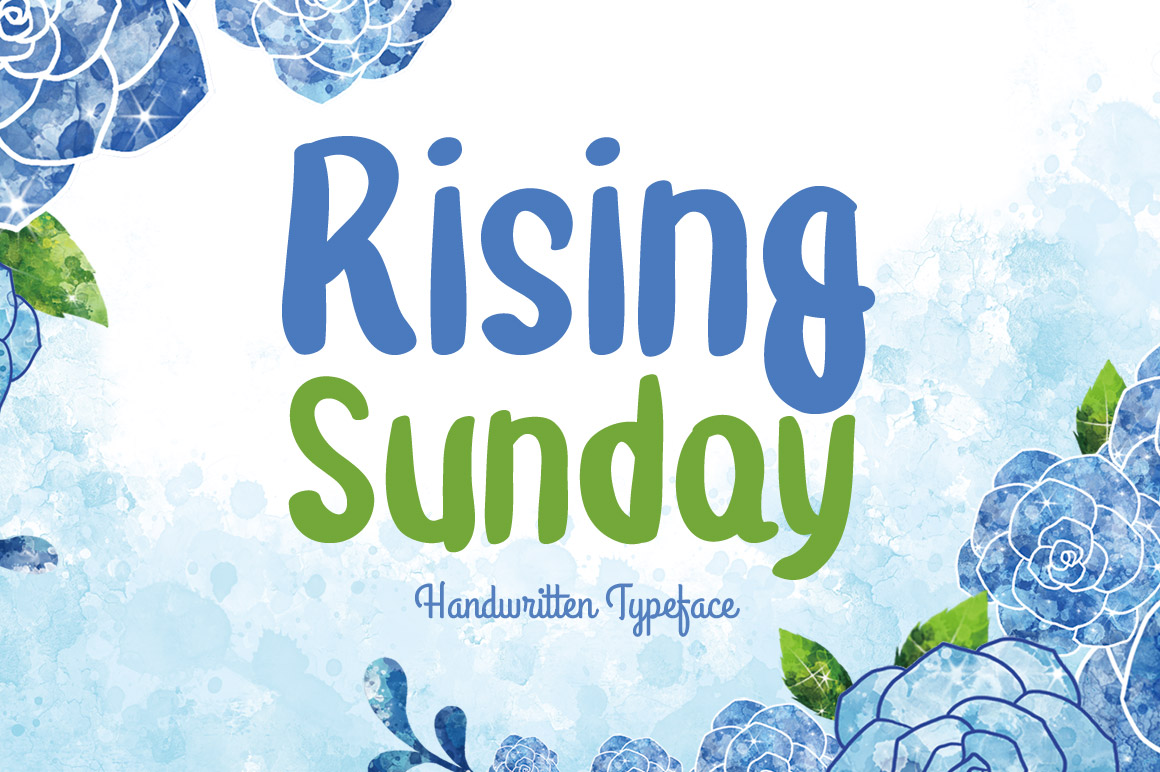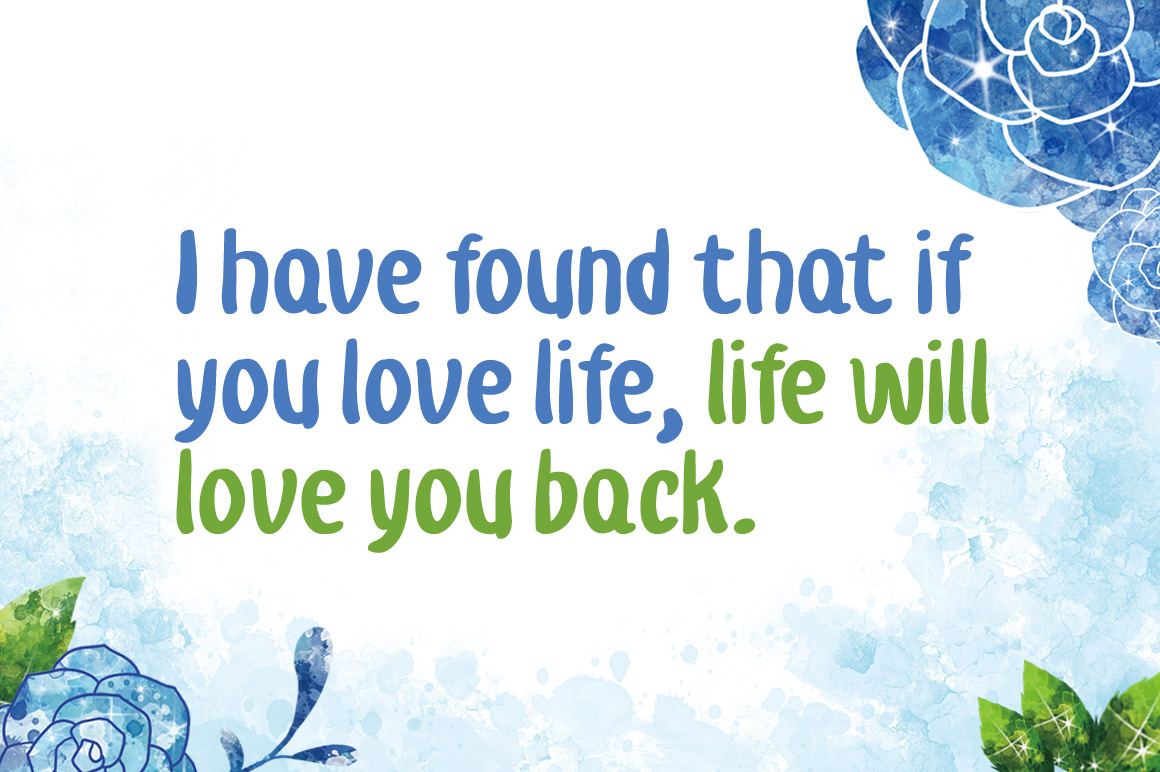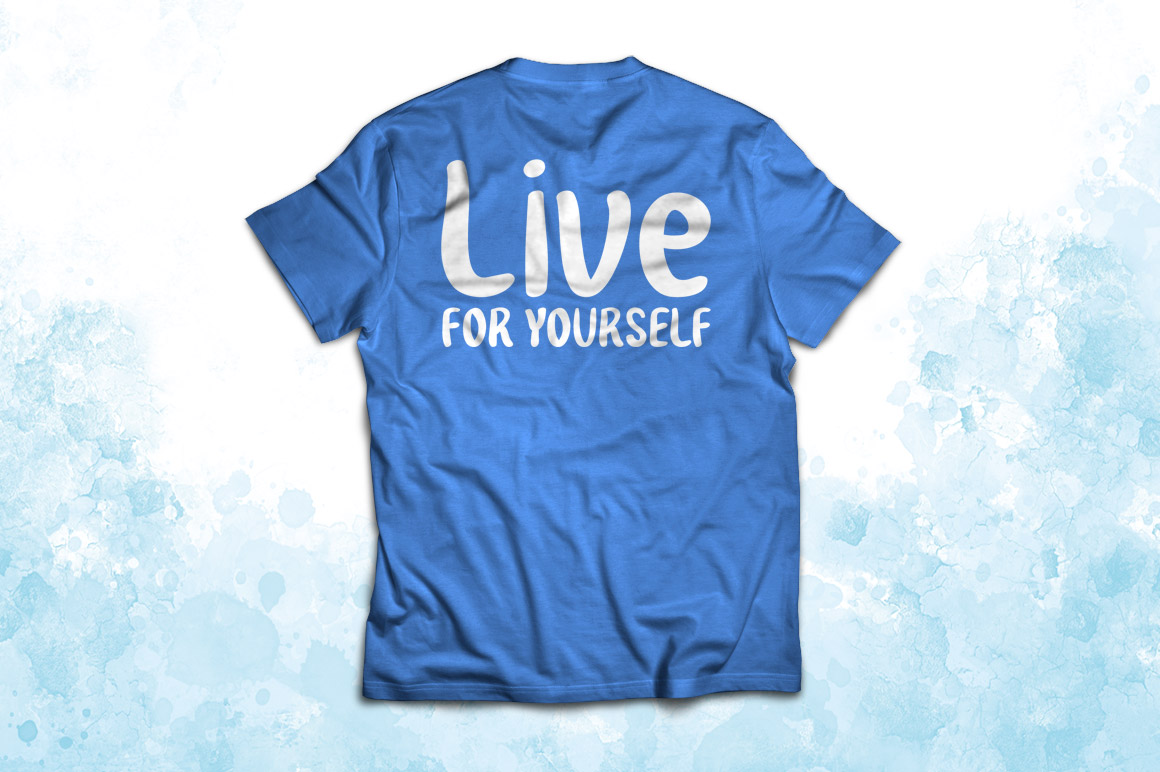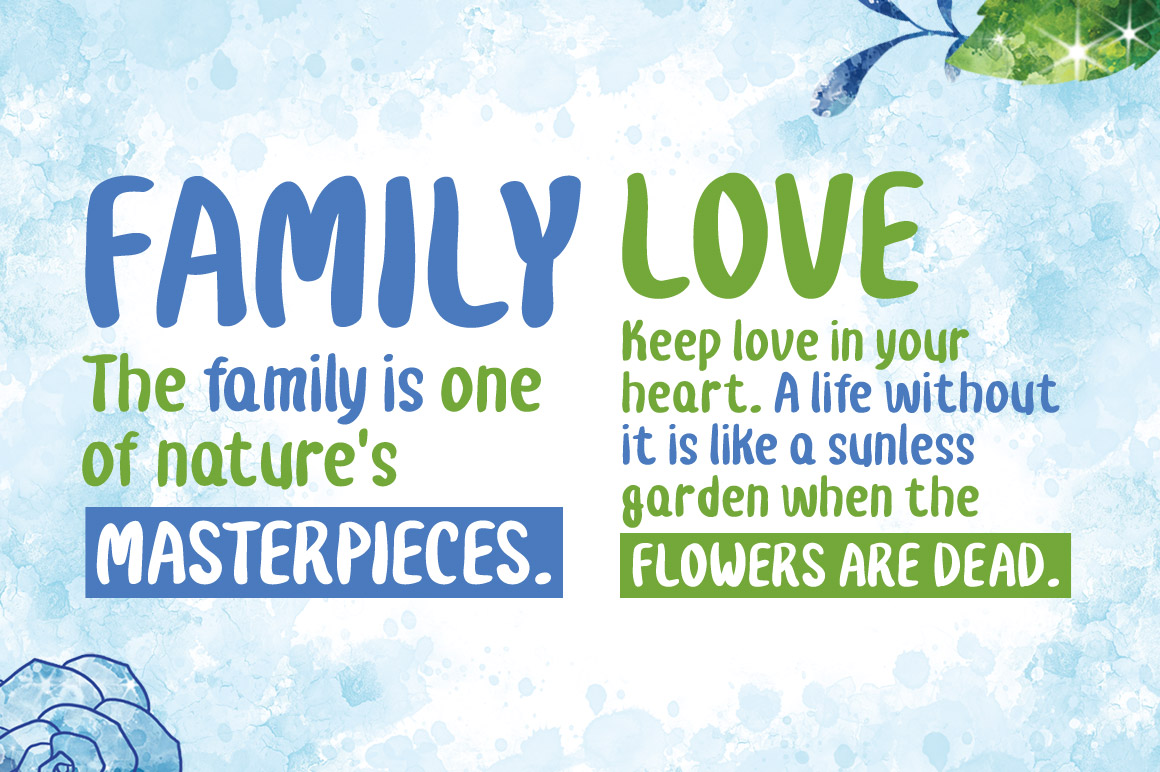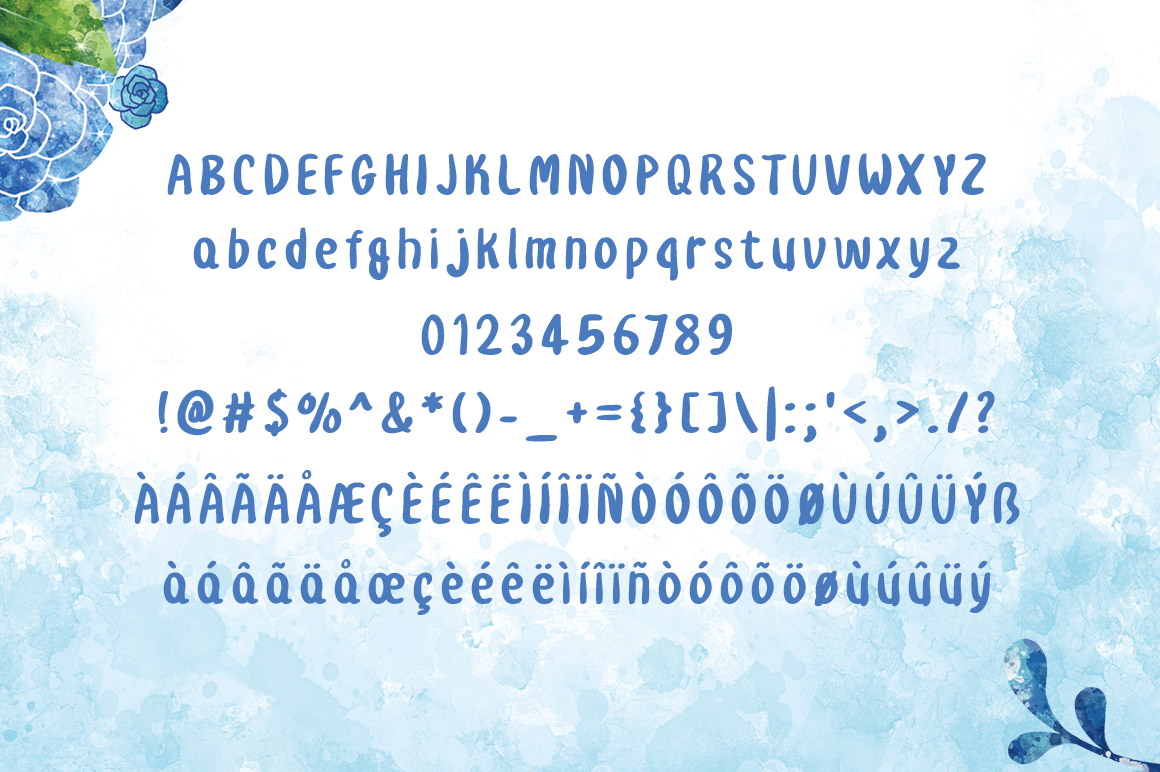
Rising Sunday Font
About Rising Sunday Font
Rising Sunday is a soft and legible font, perfectly suited for headlines and display designs. This sans serif handwritten font is friendly and can add some warmth to all your designs.